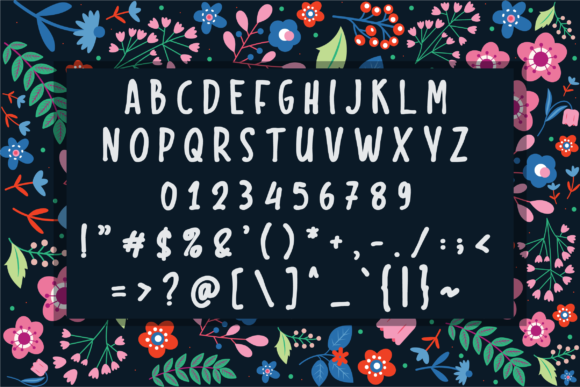
Introducing Handline Font: The Sweet and Soft Hand-Lettered Script for Stunning Crafts
Are you a designer or crafter looking for a font that can add a touch of romance and playfulness to your projects? Look no further than Handline Font, a sweet and soft hand-lettered script that is perfect for creating stunning crafts. With its playful rounded characters, Handline Font is sure to capture the hearts of anyone who lays eyes on it.
The Perfect Font for Crafters and Designers
Handline Font is a versatile font that can be used for a wide range of projects, from wedding invitations and stationary art to social media posts and greeting cards. Its romantic feel and playful vibe make it an ideal choice for anyone looking to add a personal touch to their designs. Whether you’re a professional designer or a DIY crafter, Handline Font is sure to become a favorite in your collection.
What Makes Handline Font So Special?
So, what sets Handline Font apart from other fonts? Here are just a few things that make it so special:
• Hand-lettered script: Handline Font is a hand-lettered script, which means that each character is carefully crafted to give it a personal and unique feel.
• Playful rounded characters: The rounded characters in Handline Font give it a playful and whimsical feel that’s perfect for creating fun and eye-catching designs.
• Romantic feel: Handline Font has a romantic feel that’s perfect for wedding invitations, anniversary cards, and other special occasions.
• Versatile: Handline Font can be used for a wide range of projects, from digital designs to print materials.
Using Handline Font for Your Designs
Handline Font is easy to use and can be incorporated into your designs in a variety of ways. Here are a few ideas to get you started:
• Wedding invitations: Use Handline Font to create beautiful and romantic wedding invitations that will set the tone for the big day.
• Stationary art: Create stunning stationary art with Handline Font, including notecards, journals, and other paper crafts.
• Social media posts: Use Handline Font to create eye-catching social media posts that will grab the attention of your followers.
• Greeting cards: Create cute and personalized greeting cards with Handline Font for special occasions like birthdays, anniversaries, and holidays.
Tips for Getting the Most Out of Handline Font
Here are a few tips for getting the most out of Handline Font:
• Experiment with different colors: Handline Font looks great in a variety of colors, so don’t be afraid to experiment and find the perfect hue for your design.
• Pair it with other fonts: Handline Font pairs well with other fonts, so try combining it with a bold font for a striking contrast.
• Use it for headings and titles: Handline Font is perfect for headings and titles, so use it to add a touch of personality to your designs.
Handline Font is a sweet and soft hand-lettered script that is perfect for creating stunning crafts. With its playful rounded characters and romantic feel, it’s sure to capture the hearts of designers and crafters alike. Whether you’re looking to create beautiful wedding invitations, stunning stationary art, or eye-catching social media posts, Handline Font is the perfect choice. So why wait? Fall in love with Handline Font today and start creating gorgeous designs that will leave a lasting impression.